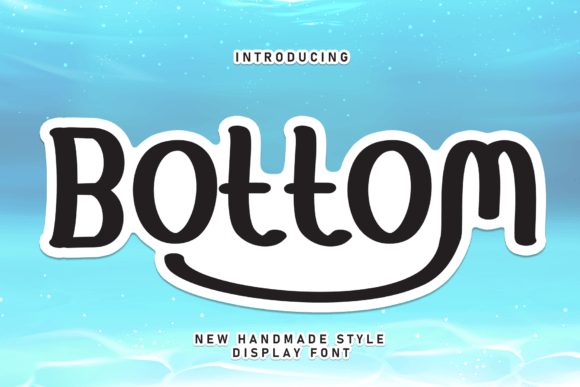
Introducing Bottom Font, a Script Typeface Embraced by Leading Web Designers in 2015
In the realm of web design, fonts have the power to transform a digital canvas into an enchanting visual symphony. They possess the ability to evoke emotions, convey messages, and create lasting impressions. Amidst the vast landscape of font families, Bottom Font stands as a beacon of individuality, a carefully crafted script typeface that has captivated the hearts of designers worldwide.
This creation of William Jhordy seamlessly blends the elegance of traditional calligraphy with the spontaneity of handwritten notes. Its flowing strokes mimic the natural movement of a human hand, resulting in a font that is both aesthetically pleasing and deeply personal. The delicate imperfections inherent to Bottom Font lend it an air of authenticity, making it the perfect choice for adding a touch of warmth and personality to any design project.
Whether you're crafting heartfelt greeting cards, pouring your thoughts into a personal journal, or engaging with your audience on social media, Bottom Font is the ideal companion. Its versatility extends far beyond these examples, making it a font that can effortlessly adapt to a multitude of creative endeavors. With its ability to convey genuine emotions and create lasting connections, Bottom Font is the ultimate choice for designers seeking to make a profound impact through their work.
Unleash the Power of Personal Expression with Bottom Font
In a digital world often characterized by uniformity and predictability, Bottom Font emerges as a breath of fresh air, a font that celebrates the beauty of individuality. Its distinct character shines through in every stroke, inviting designers to embrace their creativity and express themselves fully. Whether you're a seasoned professional or just starting your journey in the world of design, Bottom Font provides the perfect platform to showcase your unique perspective and leave an indelible mark on your audience.
As you delve deeper into the world of Bottom Font, you'll discover a treasure trove of possibilities. Its versatility allows it to effortlessly adapt to a wide range of design styles, from the classic and timeless to the modern and unconventional. From the intimate setting of personal letters to the grand stage of marketing campaigns, Bottom Font has the power to transform words into visual masterpieces.
Join the ranks of discerning designers who have recognized the exceptional qualities of Bottom Font. Embrace the opportunity to create designs that resonate with your audience, designs that evoke emotions and forge lasting connections. With Bottom Font as your creative ally, you hold the key to unlocking a world of self-expression and boundless creativity.